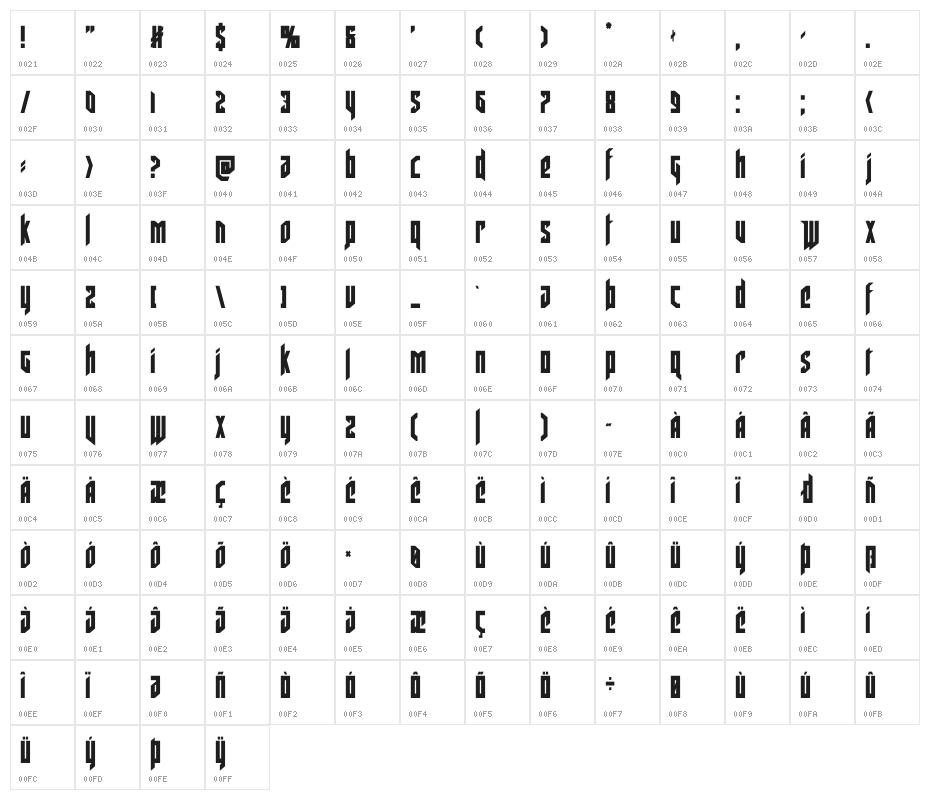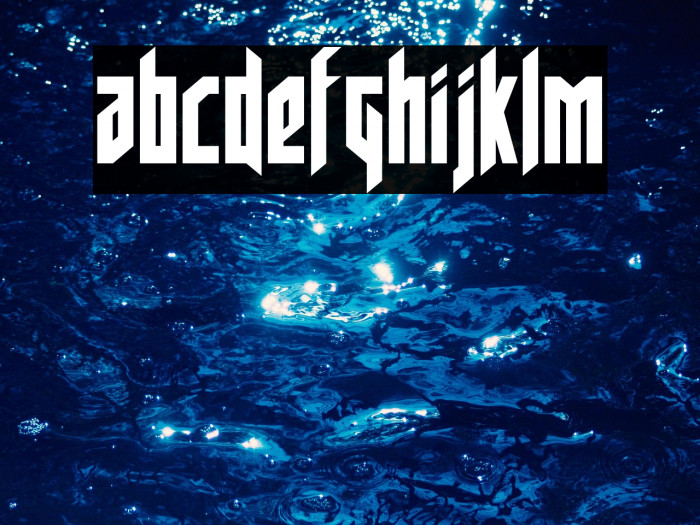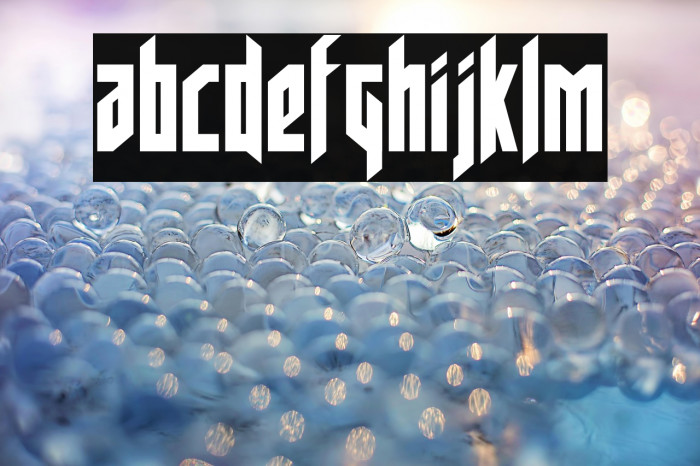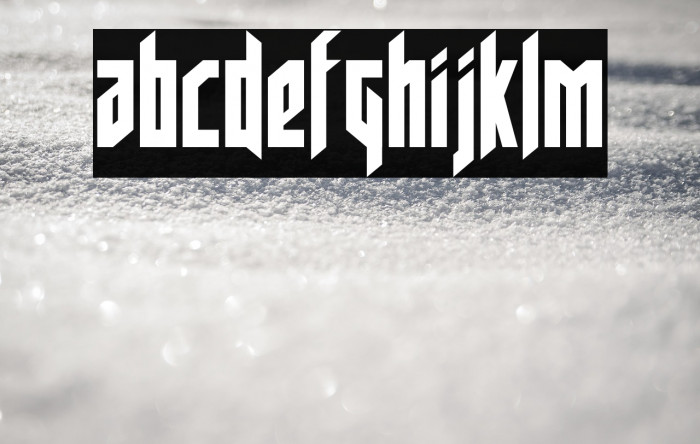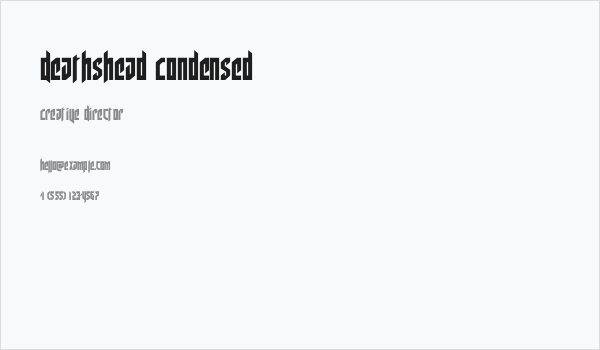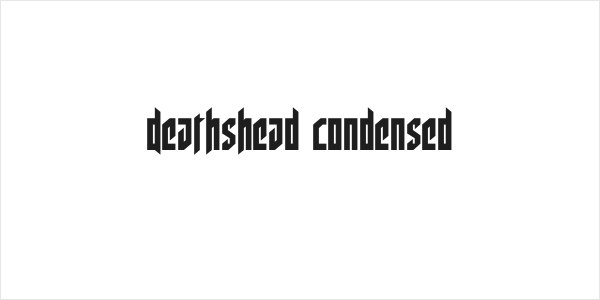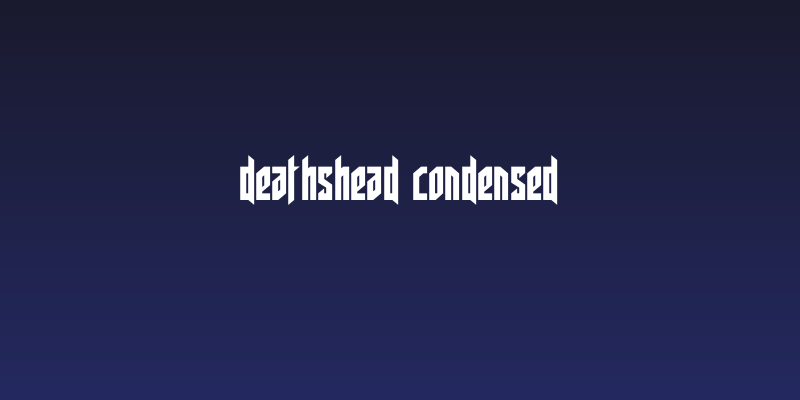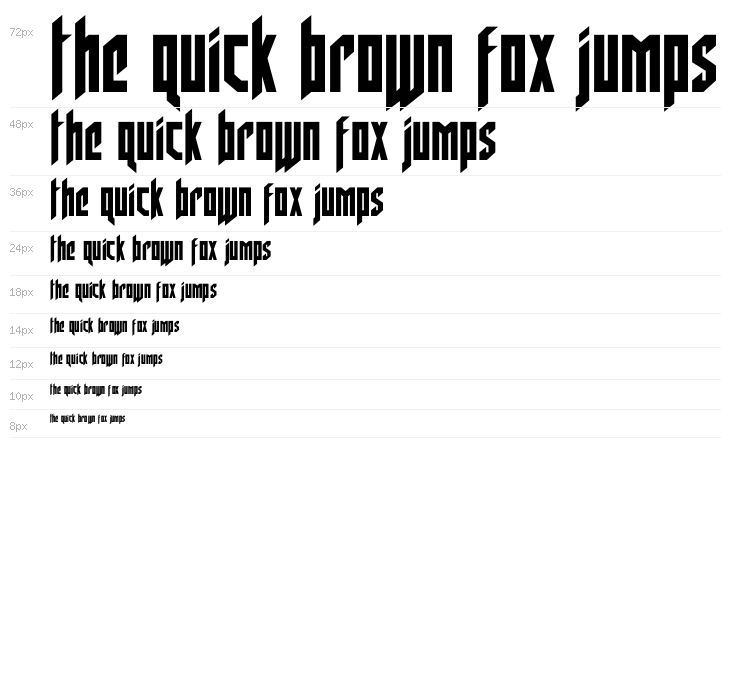
Deathshead Condensed Font
Deathshead Condensed Description
This font features a bold, angular design with sharp edges and a condensed structure. The characters are highly stylized, giving off a modern and edgy vibe. The uppercase and lowercase letters maintain a consistent geometric form, while the numbers and special characters follow the same angular theme. The overall appearance is striking and attention-grabbing, making it suitable for impactful designs.
| Proposed Projects | Ideal for posters, album covers, video game graphics, and branding that requires a bold statement. |